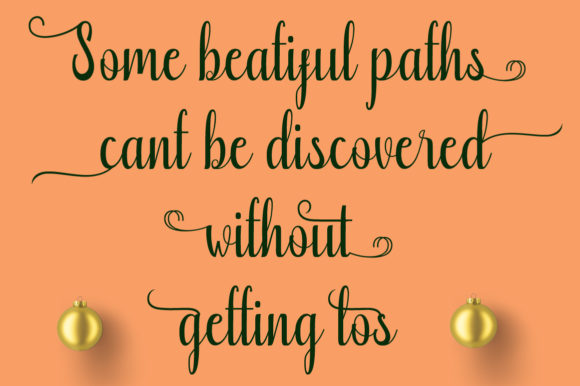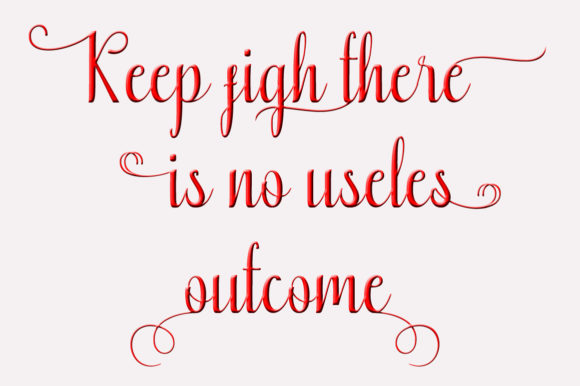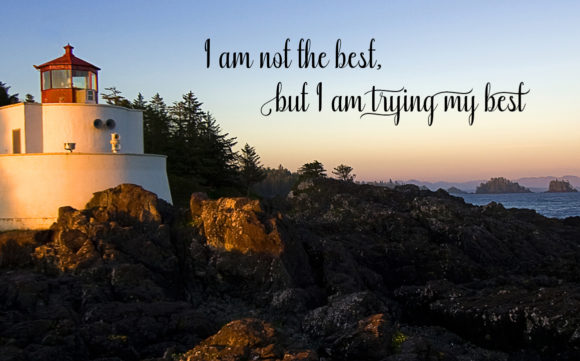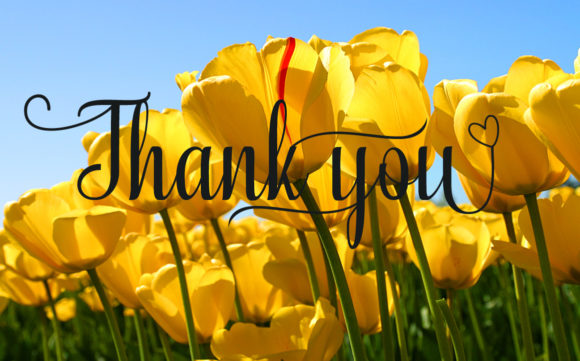
The Perfect Stroke: Elevate Your Design with Cempalakuneng Font
You know that feeling when inspiration strikes and you can’t wait to bring your creative idea to life? The thrill of brainstorming, sketching, and experimenting with different fonts until the perfect one clicks. For designers, finding the right font can make all the difference between a decent project and a truly exceptional one.
Enter the Cempalakuneng Font, a modern calligraphy font that’s about to take your designs to the next level. With its striking feel, this font is perfect for adding a touch of elegance and sophistication to any project. Whether you’re working on a wedding invitation, a brand identity, or a social media campaign, the Cempalakuneng Font is sure to make your design stand out from the crowd.
As a designer, you know how valuable it is to have a versatile and reliable font in your toolkit. The Cempalakuneng Font delivers on both counts, offering a unique look that’s both modern and timeless. So why settle for a generic font when you can make a statement with the Cempalakuneng Font?
Cempalakuneng Font Key Features
- Font Family: Cempalakuneng is a unique, handwritten font designed for various creative purposes.
- Character Count: This font includes over 200 characters, including uppercase and lowercase letters, numbers, and punctuation marks.
- Size and Resolution: Cempalakuneng font is optimized for display at 72 dpi and 96 dpi resolutions, making it suitable for digital and print applications.
- Unique Characteristics: The font features a distinctive, cursive style with varying line widths and fluid connections between letters, giving it a natural and organic feel.
Cempalakuneng Font Review
I recently had the chance to work with Cempalakuneng Font, and I must say it’s a unique and interesting choice. Here are my thoughts:
- ✨ The font’s organic, handwritten feel is perfect for creative and artistic projects.
- ✨ Cempalakuneng Font’s script style lends itself well to titles, headings, and other text elements that need a touch of personality.
- ✨ The font is highly customizable, allowing designers to adjust the letter spacing, font size, and other parameters to suit their needs.
- ⚠️ The font may not be the best choice for body text, as it can be difficult to read at smaller font sizes.
- ⚠️ Cempalakuneng Font’s unique style can be overwhelming if overused, so be sure to balance it with other fonts and design elements.
- ⚠️ Some users may find the font’s variability in stroke width and letter spacing to be inconsistent or distracting.
Cempalakuneng Font is a great choice for designers who want to add some personality and flair to their projects. While it may have some limitations, the font’s unique style and high level of customizability make it a valuable addition to any designer’s toolkit.
Tips for Getting the Most Out of Cempalakuneng Font
To get the most out of Cempalakuneng font, consider the following tips:
- Use it sparingly to add a touch of elegance to your design.
- Pair it with other fonts to create a unique and interesting typography.
Cempalakuneng font is ideal for:
- High-end branding and marketing materials.
Alternatives to Cempalakuneng Font
Montserrat is a popular sans-serif font that is suitable for modern and minimalist designs. It has a clean and geometric look that works well for digital products, apps, and websites. Montserrat is a more versatile font compared to Cempalakuneng Font, with a wider range of weights and styles available.
Use Montserrat when you need a clean and modern font that can work well for both body text and headings.
Open Sans is another popular sans-serif font that is highly legible and works well for digital products. It has a friendly and approachable look that is suitable for a wide range of designs, from corporate to creative projects. Open Sans is more legible than Cempalakuneng Font, making it a good choice for body text.
Can I customize the Cempalakuneng Font for my specific project?
Yes, the Cempalakuneng Font is designed to be highly customizable. It supports various OpenType features, such as ligatures, fractions, and stylistic sets, which can be used to create custom variations of the font. Additionally, the font’s design allows for easy modification using font editing software.